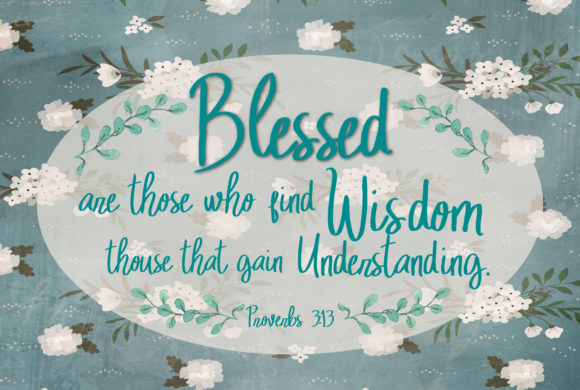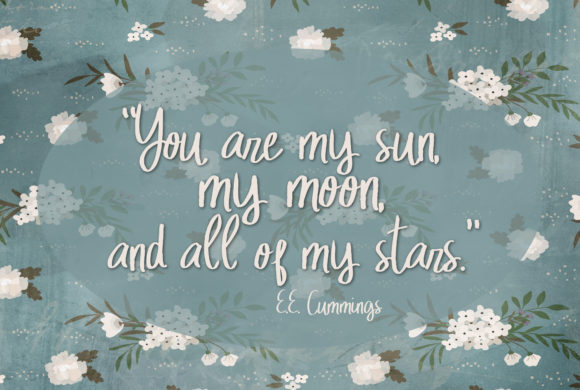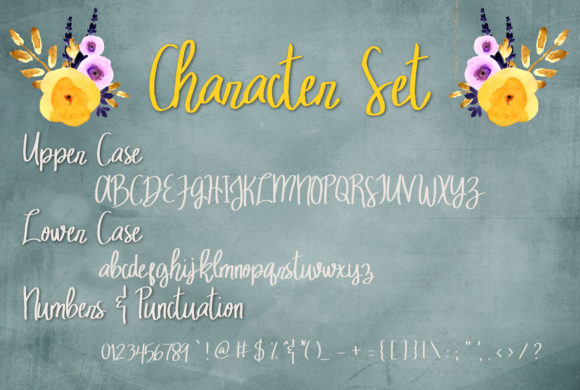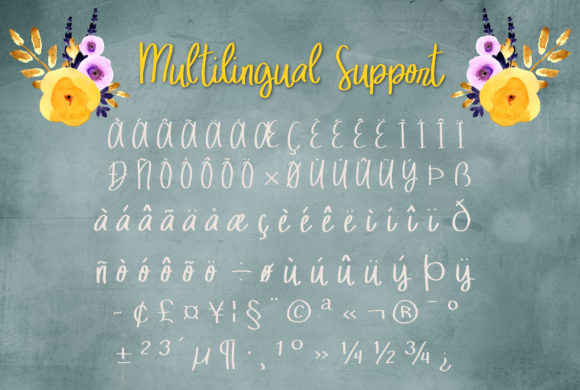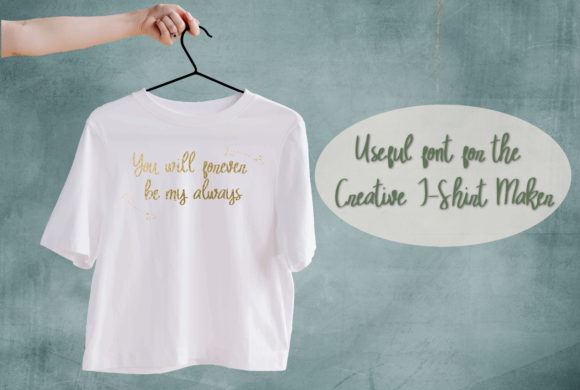
Introduction to Mellow Owl Font
Do you remember the feeling of scribbling on postcards for your family far away, the thrill of sending a piece of yourself across miles and watching the anticipation build? It’s a nostalgic moment that many of us cherish, and it’s precisely this feeling that inspired the creation of the Mellow Owl Font.
As a valuable design resource, Mellow Owl Font brings a touch of warmth and whimsy to any creative project. With its high-quality design, it’s perfect for designers looking to add a personal and unique element to their work. Whether you’re working on a branding project, a children’s book, or a social media campaign, Mellow Owl Font is sure to bring a smile to your face.
Key Features of Mellow Owl Font
- High-quality design resource suitable for creative projects, with a unique and elegant aesthetic.
- Includes a transparent background, allowing for seamless integration into various design elements.
- Unique characteristics include a modern and minimalist design, making it perfect for branding, logos, and other creative projects.
Honest Review: Mellow Owl Font
I recently had the chance to work with the Mellow Owl Font, and I must say, it’s a great addition to any design resource collection. As a designer, I’m always on the lookout for high-quality fonts that can elevate a creative project to the next level.
One of the standout features of the Mellow Owl Font is its versatility. It works well in a variety of contexts, from logos and branding materials to editorial content and advertising campaigns. The font’s unique character and personality make it a great choice for designers who want to add some visual interest to their work.
- ✨ Unique character and personality
- ✨ Versatile and works well in a variety of contexts
Overall, I’m impressed with the Mellow Owl Font. While it may have some limitations, its unique character and versatility make it a valuable addition to any design resource collection.
The Mellow Owl Font is suitable for a wide range of creative projects, including graphics, logos, posters, and documents. Its unique design and high-quality appearance make it an excellent choice for any project that requires a professional and visually appealing look.